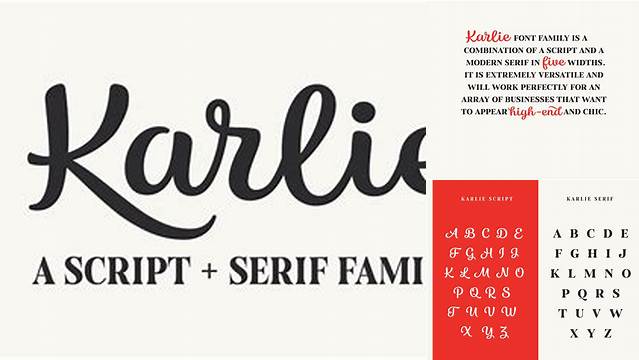
Hey guys! Are you on the hunt for a classic yet contemporary serif font to elevate your designs? Look no further! The Karlie Serif font family is a stunning typeface that’s perfect for a wide range of projects. And guess what? You can get it as a free download! In this article, we're diving deep into everything you need to know about this beautiful font, from its characteristics and uses to where you can snag it for your next masterpiece.
1. What Makes Karlie Serif So Special?
Let’s kick things off by understanding why Karlie Serif has become a favorite among designers. This font family boasts a timeless elegance with a modern twist. It’s highly legible, making it ideal for both body text and headlines. The balanced proportions and refined serifs give it a sophisticated touch, suitable for everything from branding materials to editorial designs. The versatility of Karlie Serif truly sets it apart, ensuring that it can adapt to various creative needs without losing its distinctive charm.
2. The Elegant Design of Karlie Serif
The elegant design of Karlie Serif lies in its thoughtfully crafted letterforms. Each character is designed with precision, ensuring a harmonious and balanced appearance across the entire font family. The serifs are neither too sharp nor too rounded, striking a perfect balance that adds to its overall sophistication. This meticulous design makes Karlie Serif a fantastic choice for projects where you need to convey a sense of refinement and professionalism. Whether you’re working on a high-end magazine layout or an elegant wedding invitation, this font can elevate your design.
3. Karlie Serif: A Font for Every Project
One of the best things about Karlie Serif is its versatility. Seriously, guys, you can use this font for almost anything! Need a classy font for your website headers? Check. How about a readable typeface for your book's body text? Double-check. From logos and branding to invitations and marketing materials, Karlie Serif fits the bill. Its adaptability makes it a go-to choice for designers who want a reliable and stylish font that can handle a variety of projects. Think of it as the Swiss Army knife of fonts – always ready for action.
4. Perfect for Headlines: Karlie Serif's Impact
When it comes to headlines, Karlie Serif really shines. Its strong presence and clear letterforms ensure that your headings grab attention and remain highly legible. The font’s elegant serifs add a touch of sophistication, making your headlines stand out in a subtle yet impactful way. Whether you’re designing a poster, a website, or a magazine layout, using Karlie Serif for your headlines can make a significant difference in how your message is received. It commands attention without being overly assertive, a quality that's perfect for conveying important information with style.
5. Body Text Bliss: Readability with Karlie Serif
Readability is key, especially when it comes to body text, and Karlie Serif nails it. Its well-balanced letterforms and generous spacing make it easy on the eyes, even in long passages of text. This is crucial for projects like books, articles, and websites where you want readers to stay engaged without straining their eyes. Using Karlie Serif for your body text ensures that your content is not only visually appealing but also highly accessible. It’s a font that respects the reader’s experience, making it a top choice for text-heavy designs.
6. Branding with Karlie Serif: A Touch of Class
If you’re looking to create a brand identity that exudes class and sophistication, Karlie Serif is your new best friend. This font’s elegant and timeless design makes it perfect for logos, business cards, and other branding materials. Using Karlie Serif can help your brand convey a sense of reliability and professionalism, qualities that are essential for building trust with your audience. It’s a font that speaks volumes without saying a word, making it an invaluable asset for any brand looking to make a lasting impression.
7. Karlie Serif in Print: Elegance on Paper
Karlie Serif looks absolutely stunning in print. The crisp lines and refined serifs translate beautifully onto paper, making it an excellent choice for printed materials like books, magazines, and brochures. Whether you’re printing on glossy paper or matte stock, Karlie Serif maintains its elegance and legibility. This makes it a versatile option for any print project, from formal invitations to marketing collateral. If you want your printed materials to have a touch of sophistication, Karlie Serif is the way to go.
8. Digital Design: Karlie Serif's Online Presence
In the digital world, Karlie Serif holds its own with grace. Its clear and legible letterforms make it a fantastic choice for websites, apps, and other digital platforms. The font’s modern yet timeless design ensures that it looks great on screens of all sizes, from desktops to mobile devices. Using Karlie Serif in your digital designs can help create a cohesive and professional look that enhances the user experience. It’s a font that understands the demands of the digital age, making it a smart choice for any online project.
9. Karlie Serif and Pairing Fonts: Finding the Perfect Match
Pairing fonts can be tricky, but Karlie Serif plays well with others. For a classic and sophisticated look, try pairing it with a clean sans-serif font like Helvetica or Arial. If you’re going for a more modern vibe, consider using a geometric sans-serif like Montserrat or Futura. The key is to find a font that complements Karlie Serif without competing for attention. A well-chosen pairing can elevate your design and create a visually harmonious composition. Experiment with different combinations to find the perfect match for your project.
10. Where to Download Karlie Serif for Free
Now for the million-dollar question: where can you download Karlie Serif for free? There are several reputable websites that offer this font for personal and commercial use. Be sure to check the licensing terms to ensure you’re using the font correctly. Websites like Fontesk, Free Fonts Family, and similar platforms often have free font offerings, so it’s worth exploring these resources. Always download fonts from trusted sources to avoid any potential issues with malware or licensing restrictions.
11. Karlie Serif Alternatives: Other Fonts to Consider
If Karlie Serif isn't quite what you're looking for, there are plenty of alternatives out there. Popular serif fonts like Times New Roman, Garamond, and Playfair Display offer similar levels of elegance and readability. Each of these fonts has its own unique characteristics, so it’s worth exploring them to find the perfect fit for your project. Consider the overall tone and style you’re aiming for when choosing an alternative, and don’t be afraid to experiment with different options.
12. The Impact of a Great Serif Font like Karlie
The impact of a great serif font like Karlie Serif cannot be overstated. A well-chosen font can elevate your design, convey your message effectively, and create a lasting impression on your audience. Karlie Serif, with its elegant and versatile design, is a prime example of a font that can make a significant difference in your creative projects. Whether you’re designing a logo, a website, or a printed brochure, using a high-quality serif font like Karlie can help you achieve your goals.
13. Karlie Serif's Different Weights and Styles
One of the advantages of Karlie Serif is that it often comes in a variety of weights and styles. This gives you more flexibility in your design, allowing you to create visual hierarchy and emphasis with ease. From light and regular to bold and italic, the different weights and styles of Karlie Serif can be used to add depth and dimension to your typography. This versatility makes it a valuable asset for any designer looking to create a polished and professional look.
14. Using Karlie Serif for a Modern Look
While Karlie Serif has a classic feel, it can also be used to create a modern look. By pairing it with contemporary design elements and clean layouts, you can give this traditional font a fresh and updated vibe. The key is to balance the elegance of Karlie Serif with modern aesthetics, creating a design that feels both timeless and current. This makes it a versatile choice for projects that need to bridge the gap between classic and contemporary styles.
15. The Timeless Appeal of Karlie Serif
There’s something about Karlie Serif that just screams timelessness. Its classic letterforms and elegant serifs give it an enduring appeal that transcends trends. This makes it a smart choice for projects where you want to create a design that will stand the test of time. Using Karlie Serif ensures that your work will look just as good in the future as it does today, a quality that’s invaluable for building a lasting brand or creating a timeless piece of art.
16. Karlie Serif for Web Design: Best Practices
When using Karlie Serif for web design, there are a few best practices to keep in mind. First, ensure that the font is properly optimized for web use to maintain its legibility and performance. Use appropriate font sizes and line heights to make your text easy to read on different devices. Additionally, consider the contrast between your text and background to ensure optimal readability. By following these guidelines, you can make the most of Karlie Serif’s elegance and versatility in your web projects.
17. Karlie Serif and Accessibility: Ensuring Readability
Accessibility is crucial in design, and Karlie Serif can be a great choice for creating accessible content. Its clear and legible letterforms make it easy for people with visual impairments to read. However, it’s important to consider factors like font size, contrast, and line spacing to ensure optimal readability for all users. By paying attention to these details, you can use Karlie Serif to create designs that are both beautiful and inclusive.
18. The Psychology of Serif Fonts: Why Karlie Serif Works
Serif fonts like Karlie Serif often evoke a sense of tradition, authority, and sophistication. This is because serifs – the small strokes at the ends of letters – have been used in typography for centuries. Using Karlie Serif can help your design convey a sense of trustworthiness and reliability, making it a great choice for brands and projects that want to project a sense of expertise and professionalism. Understanding the psychology of fonts can help you make informed design decisions that resonate with your target audience.
19. Karlie Serif's Versatility in Different Media
Whether it’s used in print, on the web, or in digital applications, Karlie Serif shines in various media. Its versatility stems from its balanced design, ensuring legibility and aesthetic appeal across different platforms. This adaptability makes Karlie Serif a reliable choice for designers working on diverse projects, from branding materials to website layouts. Its consistent performance across media ensures a cohesive and professional look, no matter where your design appears.
20. Karlie Serif and Its Role in Visual Hierarchy
Visual hierarchy is key to effective design, and Karlie Serif can play a significant role in establishing it. By using different weights and styles of the font, you can create clear distinctions between headings, subheadings, and body text. This helps guide the viewer’s eye and ensures that important information stands out. Using Karlie Serif strategically can enhance the overall readability and impact of your design, making it more engaging and effective.
21. The Future of Karlie Serif: Trends and Predictions
Looking ahead, Karlie Serif is likely to remain a popular choice for designers due to its timeless elegance and versatility. As design trends evolve, Karlie Serif can adapt and integrate seamlessly, whether it’s paired with minimalist layouts or used in more elaborate designs. Its enduring appeal suggests that it will continue to be a go-to font for projects that require a touch of sophistication and class.
22. Tips for Maximizing Karlie Serif's Potential
To really get the most out of Karlie Serif, there are a few tips to keep in mind. First, pay attention to kerning and tracking to ensure optimal spacing between letters. Experiment with different weights and styles to create visual interest and hierarchy. And finally, consider the overall context of your design and how Karlie Serif fits into the bigger picture. By following these tips, you can leverage Karlie Serif's potential to create stunning designs.
23. Karlie Serif: Common Mistakes to Avoid
While Karlie Serif is a fantastic font, there are a few common mistakes to avoid when using it. Overusing the font can make your design feel monotonous, so it’s important to use it strategically. Avoid using too many different weights and styles in the same design, as this can create visual clutter. And finally, be mindful of the context – Karlie Serif may not be the best choice for projects that require a more casual or playful tone. Being aware of these potential pitfalls can help you use Karlie Serif effectively.
24. Real-World Examples of Karlie Serif in Action
Seeing Karlie Serif in action can provide inspiration for your own projects. Many brands and publications use this font to create a sense of elegance and sophistication. From high-end fashion magazines to corporate websites, Karlie Serif is a popular choice for designs that need to convey a sense of class and professionalism. Exploring real-world examples can help you visualize how Karlie Serif can be used to enhance your own designs.
25. Karlie Serif and the Importance of Legibility
Legibility is a top priority in design, and Karlie Serif excels in this area. Its clear and well-defined letterforms make it easy to read, even in small sizes or long passages of text. This makes it a reliable choice for projects where readability is crucial, such as websites, books, and articles. By prioritizing legibility with Karlie Serif, you can ensure that your message is effectively communicated to your audience.
26. The Emotional Impact of Karlie Serif
Fonts can evoke emotions, and Karlie Serif is no exception. Its elegant and sophisticated design can convey feelings of trustworthiness, reliability, and refinement. This makes it a great choice for brands and projects that want to project a sense of authority and class. Understanding the emotional impact of fonts can help you make informed design decisions that resonate with your target audience and convey the right message.
27. Karlie Serif's Role in Storytelling Through Typography
Typography is a powerful tool for storytelling, and Karlie Serif can play a key role in this process. By choosing this font, you can set a specific tone and mood for your message, enhancing the narrative and drawing the reader in. Its timeless and elegant design can evoke a sense of tradition and sophistication, making it a great choice for stories that require a touch of class. Using Karlie Serif effectively can transform your words into a compelling visual narrative.
28. Karlie Serif: A Font for the Professional Designer
For professional designers, having a versatile and reliable font like Karlie Serif in their toolkit is essential. Its adaptability, legibility, and timeless elegance make it a valuable asset for a wide range of projects. Whether you’re designing a logo, a website, or a printed brochure, Karlie Serif can help you achieve a polished and professional look. It’s a font that understands the demands of the design world and delivers consistent results.
29. Karlie Serif vs. Other Serif Fonts: A Comparison
When choosing a serif font, it’s helpful to compare Karlie Serif with other options. Fonts like Times New Roman, Garamond, and Playfair Display offer similar levels of elegance and readability, but each has its own unique characteristics. Consider factors like the overall tone and style you’re aiming for, as well as the specific requirements of your project. A thorough comparison can help you make an informed decision and choose the font that best fits your needs.
30. Mastering Karlie Serif: Advanced Techniques and Tips
To truly master Karlie Serif, it’s worth exploring advanced techniques and tips. Experiment with different kerning and tracking settings to fine-tune the spacing between letters. Try combining it with other fonts to create visual contrast and hierarchy. And always consider the overall context of your design and how Karlie Serif fits into the bigger picture. With practice and experimentation, you can unlock the full potential of this beautiful font and create stunning designs.